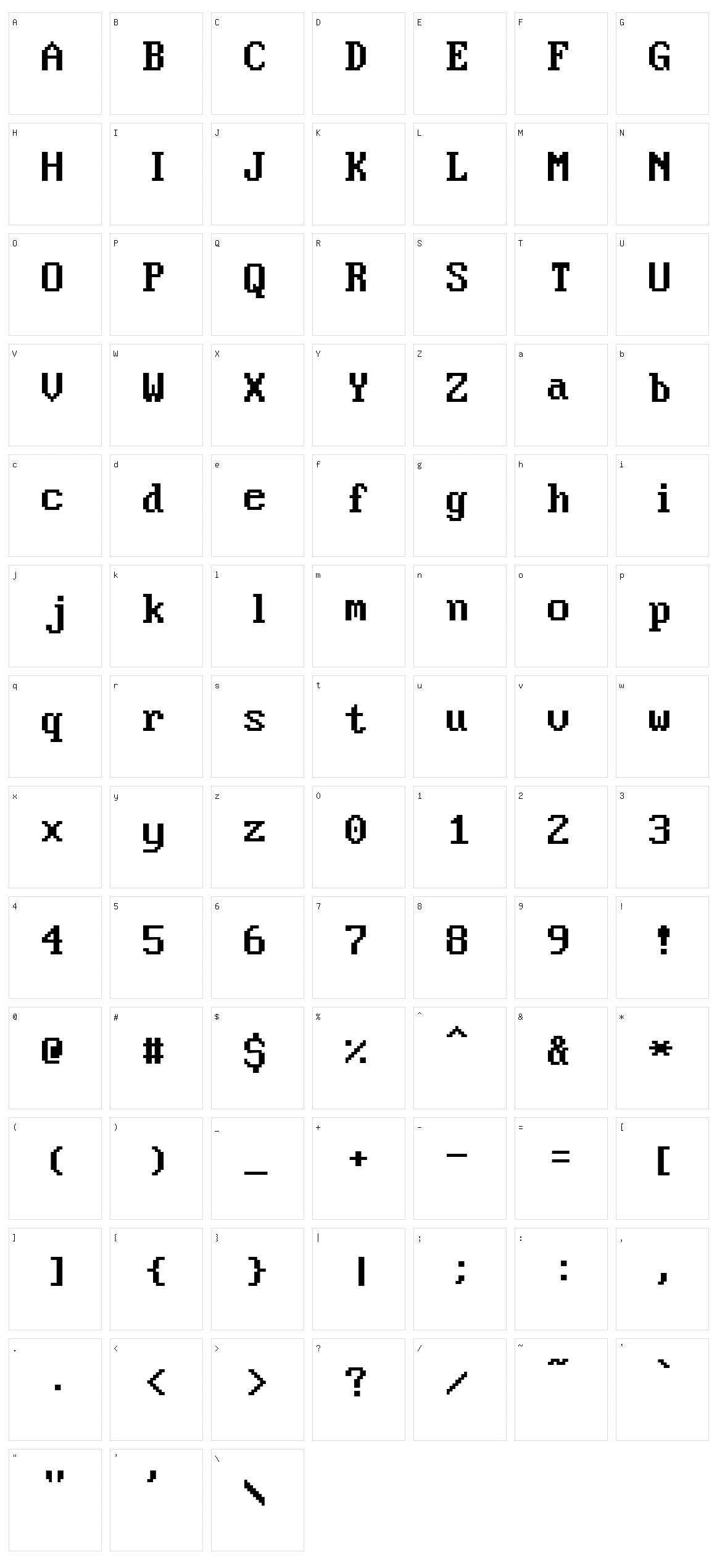
Perfect DOS VGA 437
Designed by: Zeh Fernando
"Perfect DOS VGA 437" and "Perfect DOS VGA 437 Win" are truetype fonts
designed to emulate the MS-DOS/Text mode standard font, used on VGA monitors,
with the 437 Codepage (standard US/International). This is a "bitmap" font,
meaning it emulates a bitmap font and can only be used at a given size (8 or
multiples of it like 16, 24, 32, etc). It's optimized for Flash too, so it
won't produce antialias if used at round positions.
There are two fonts available. "Perfect DOS VGA 437" uses the original DOS
codepage 437. It should be used, for example, if you're opening DOS ASCII
files on notepad or another windows-based editor. Since it's faithful to the
original DOS codes, it won't accent correctly in windows ("é" would produce
something different, not an "e" with an acute).
There's also "Perfect DOS VGA 437 Win" which is the exactly same font adapted
to a windows codepage. This should use accented characters correctly but won't
work if you're opening a DOS-based text file.
UPDATE: this is a new version, updated in august/2008. It has fixed leading
metrics for Mac systems.
This font was created to be used on a Flash-based ANSi viewer I'm working. To
create it, I created a small Quick Basic program to write all characters on
screen,
Then captured the text screen using SCREEN THIEF (a very, very old screen
capture TSR program which converts text screens to images accurately). I then
recreated the font polygon by polygon on Fontlab, while looking at the image
on Photoshop. No conversion took place.